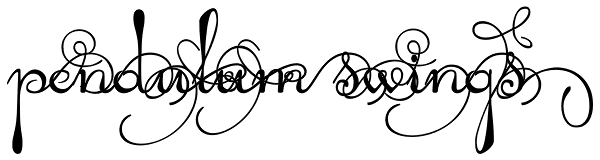
Pendulum
Pendulum is the much-anticipated digitization and swashy expansion of Americana, an amazing yet long overlooked treasure from the Nebiolo foundry, circa 1945. With heavy descenders and seemingly floating ascenders emanating from one of the most...
Pendulum Swings
Pendulum